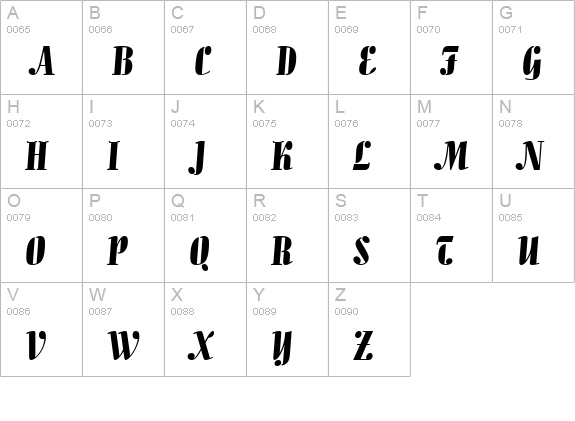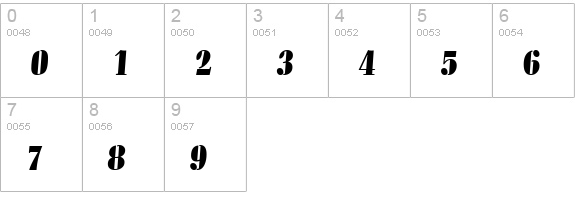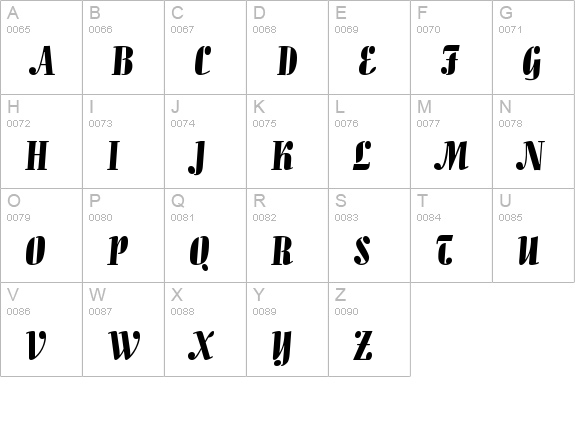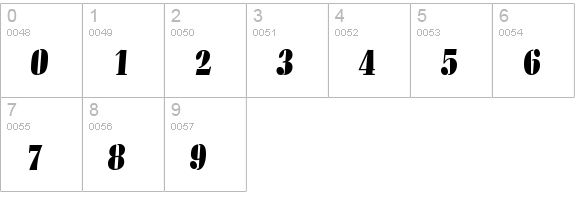
TRAllegro is a versatile and elegant font that combines classic elements with a modern twist. With its clean lines and stylish curves, TRAllegro exudes sophistication and charm. This font is perfect for a wide range of design projects, from branding to editorial design. The best part? TRAllegro is available for free download at FontsMarket.com. Whether you're a seasoned designer looking to add a new font to your collection or a beginner exploring typography for the first time, TRAllegro is a fantastic choice. Don't miss out on the opportunity to enhance your projects with this beautiful and unique font. Download TRAllegro today and let your creativity soar.